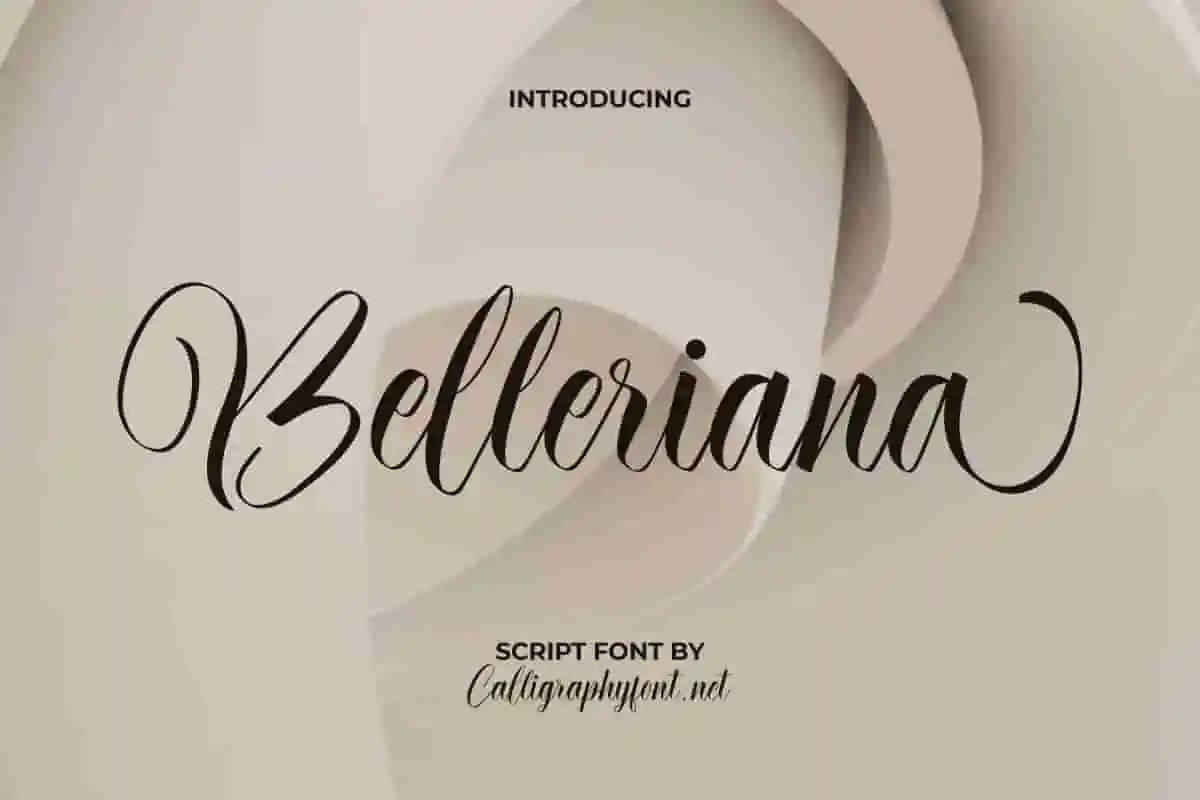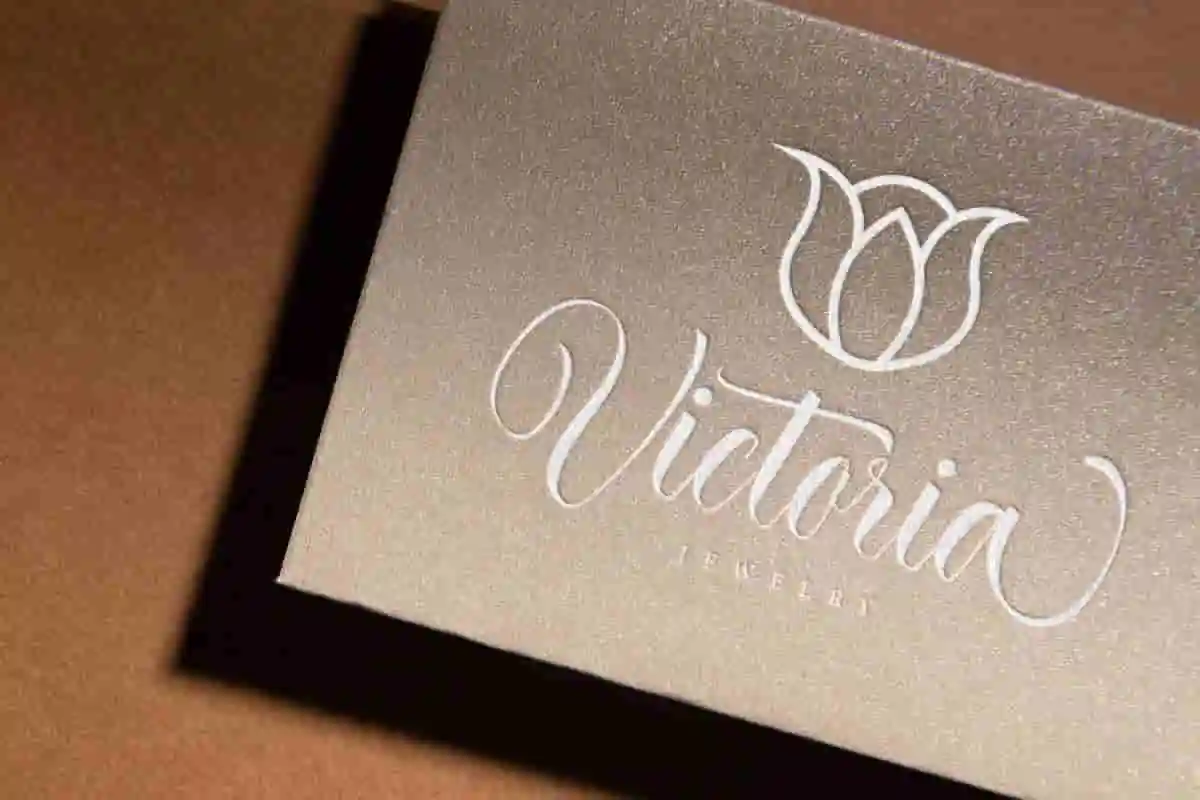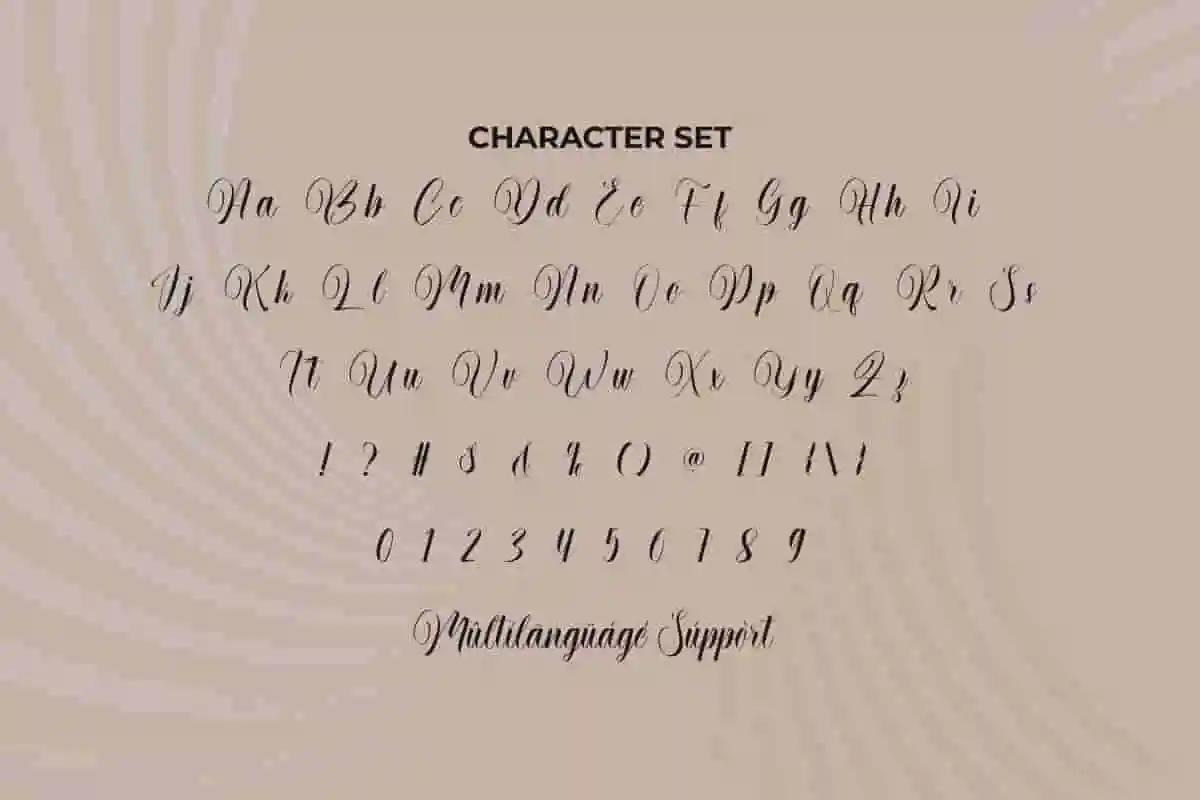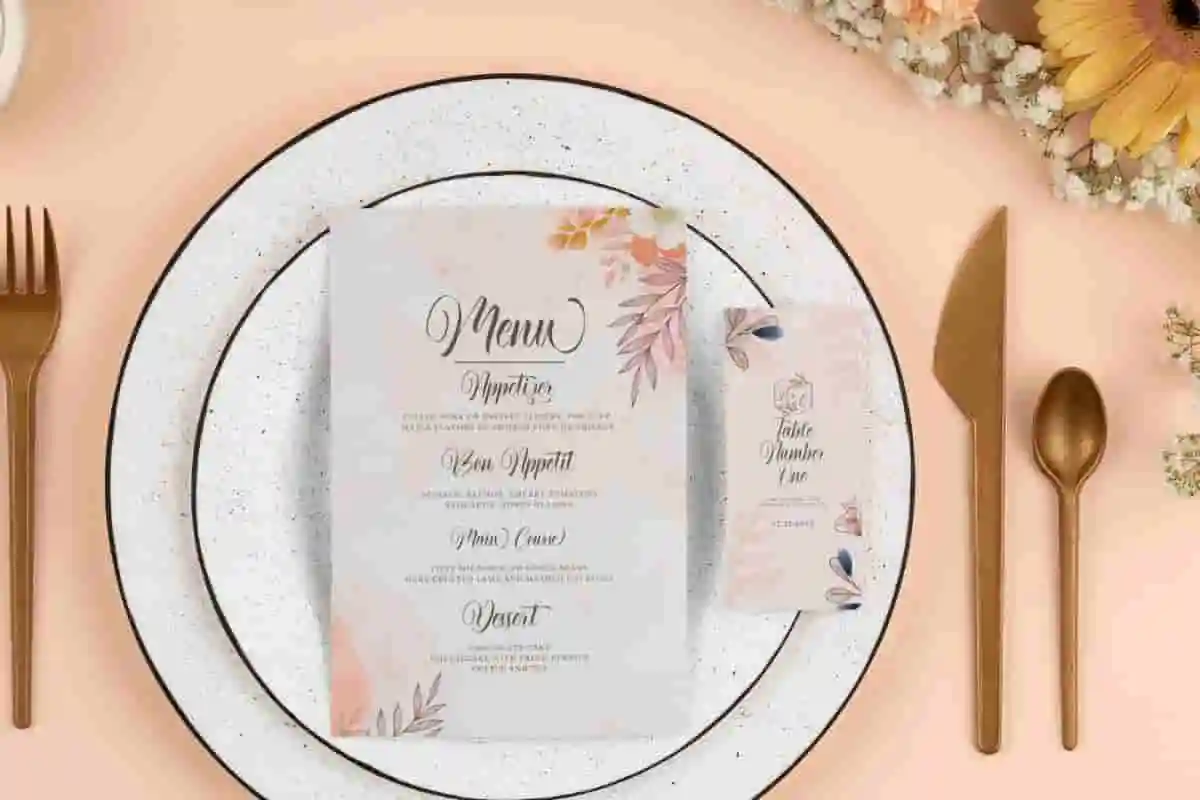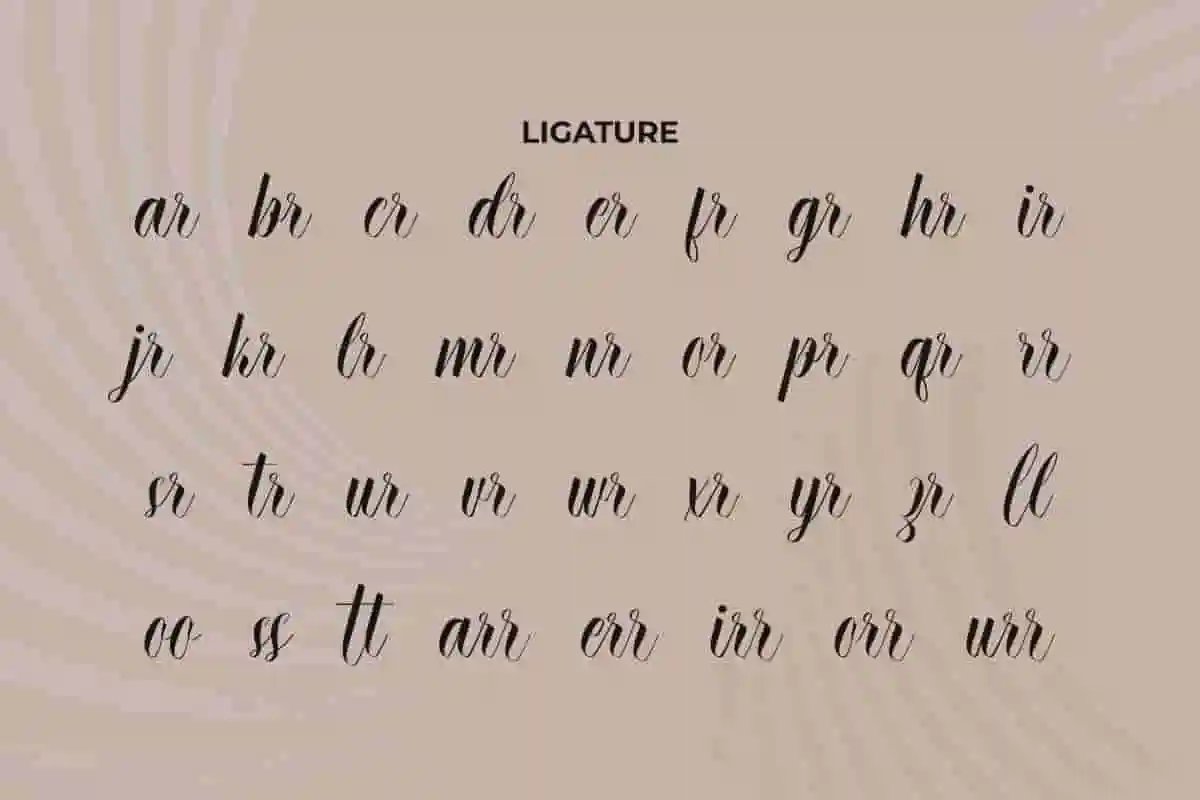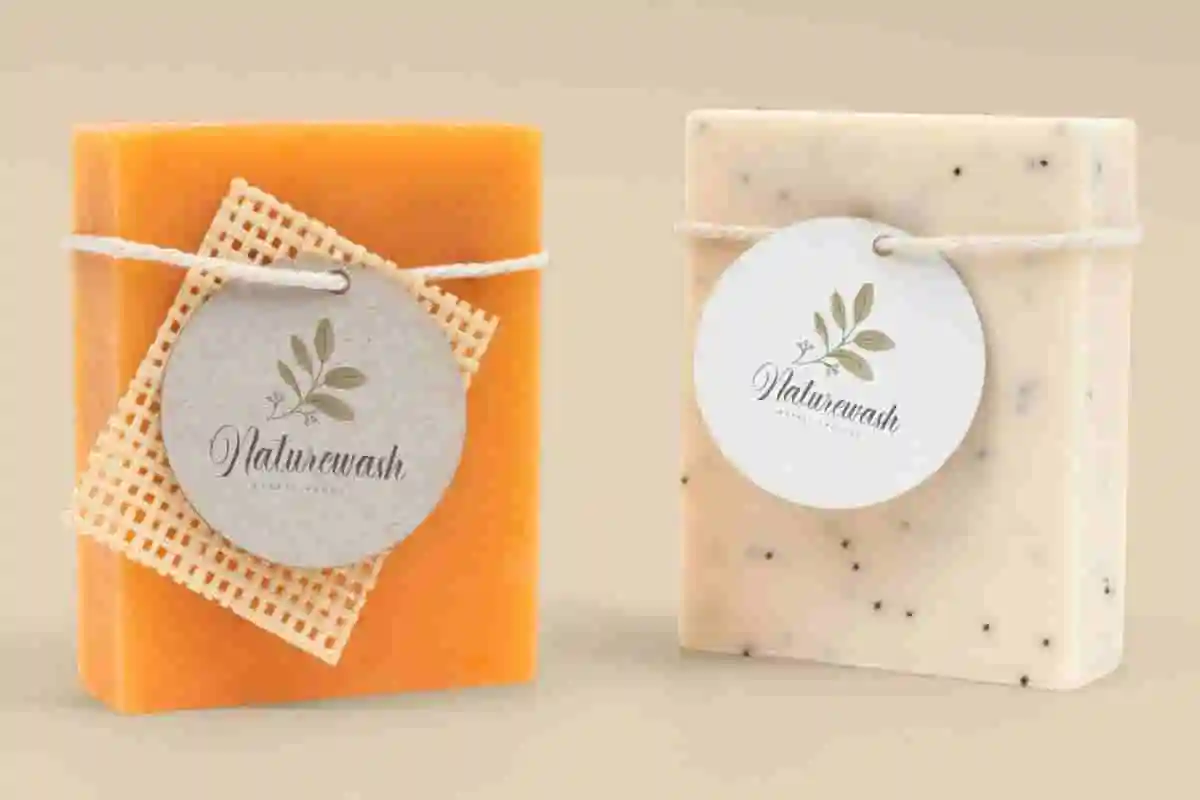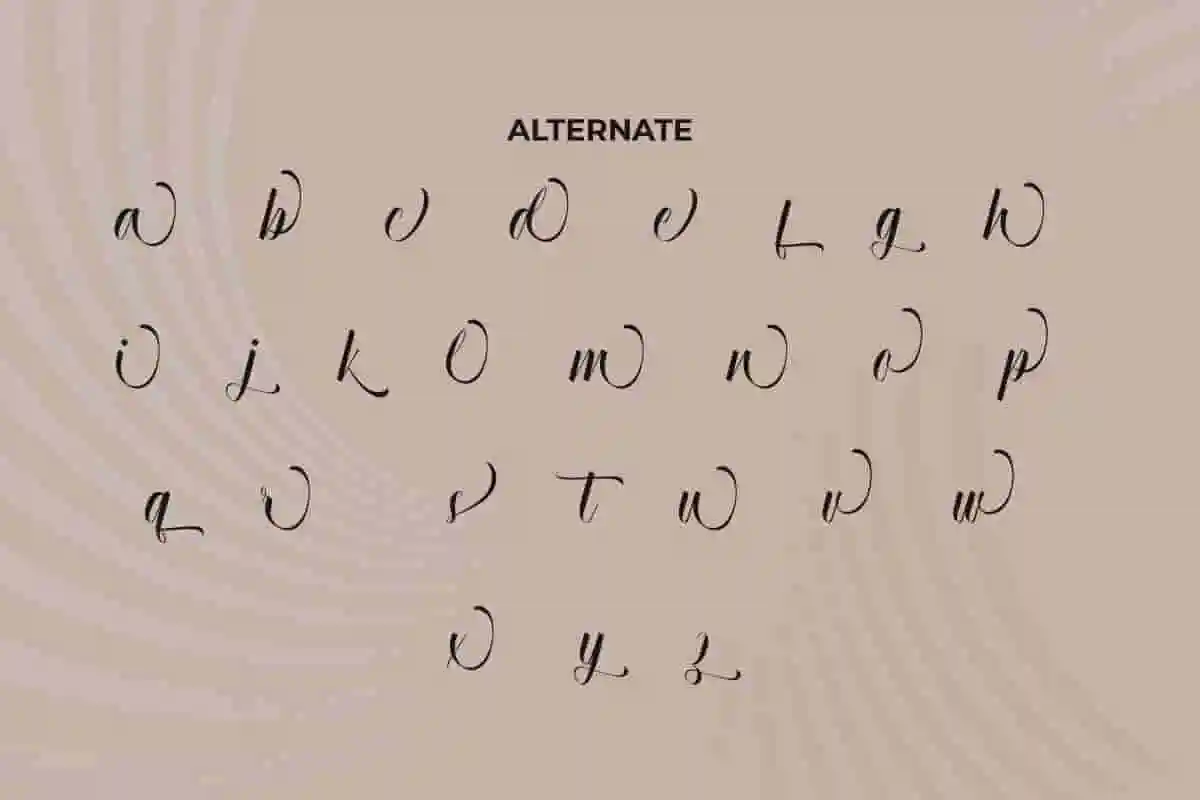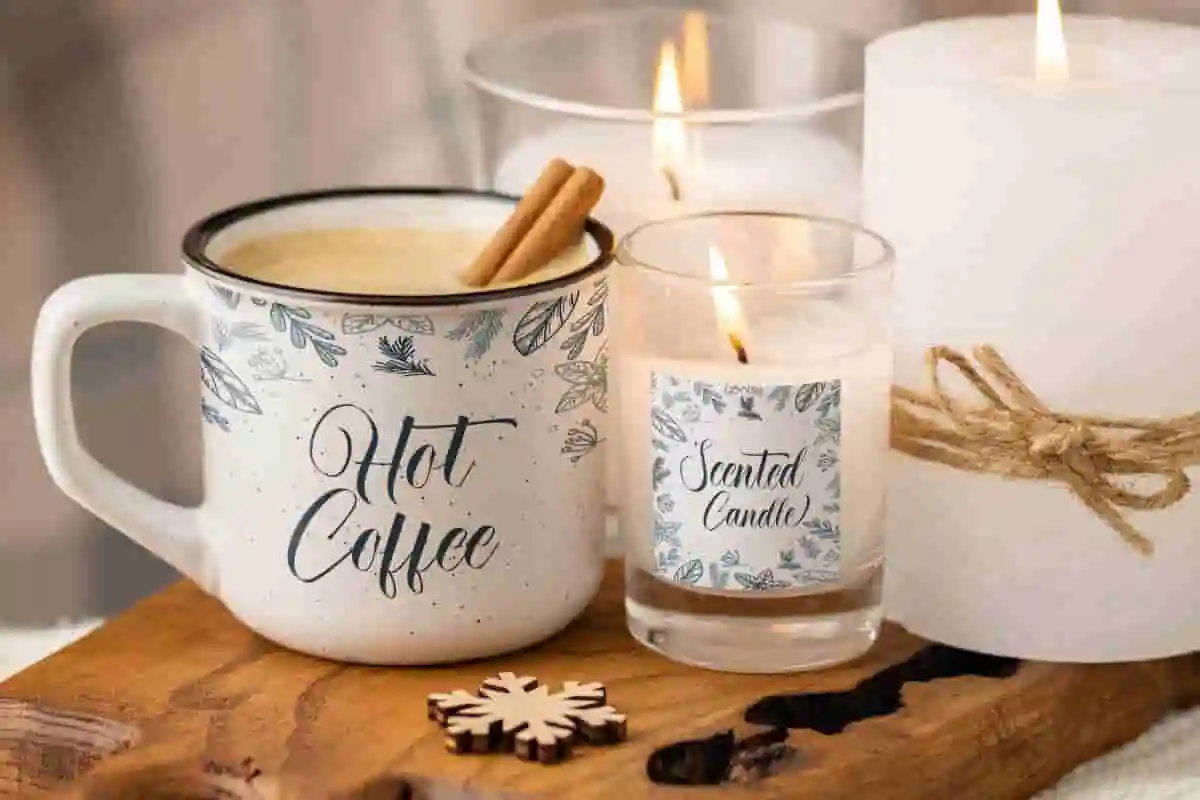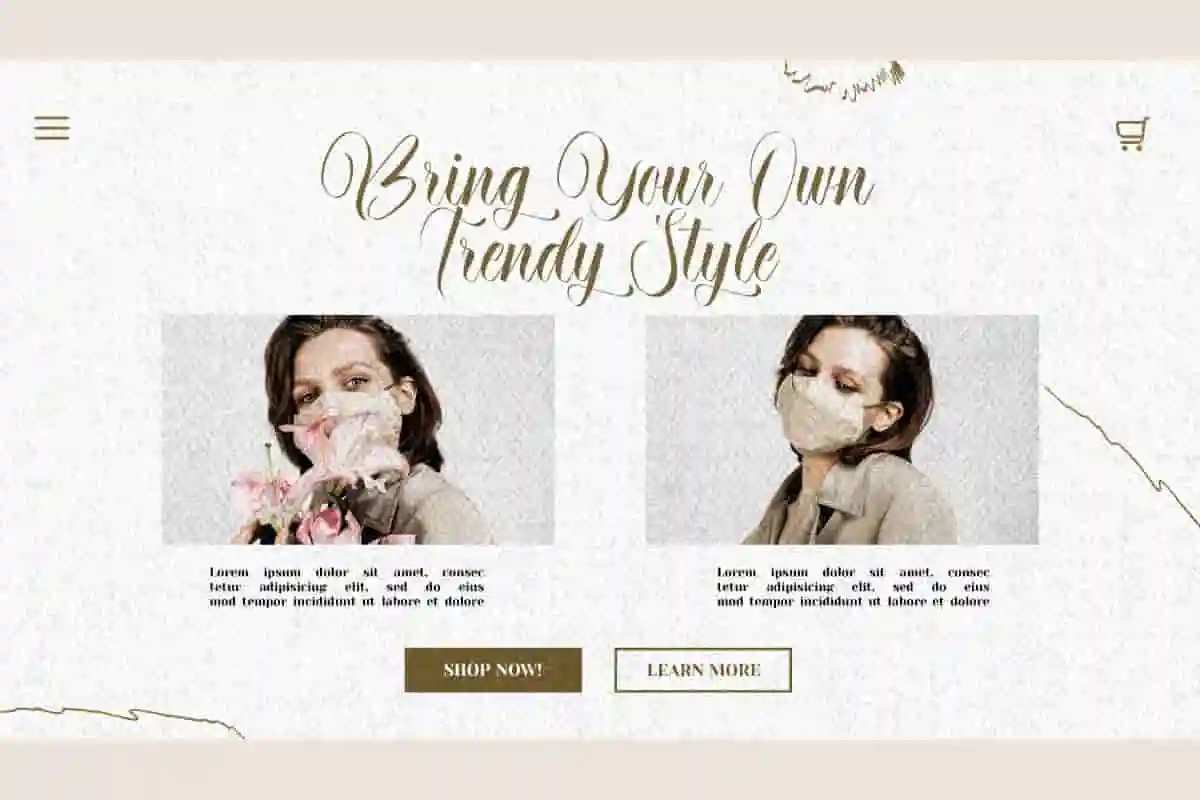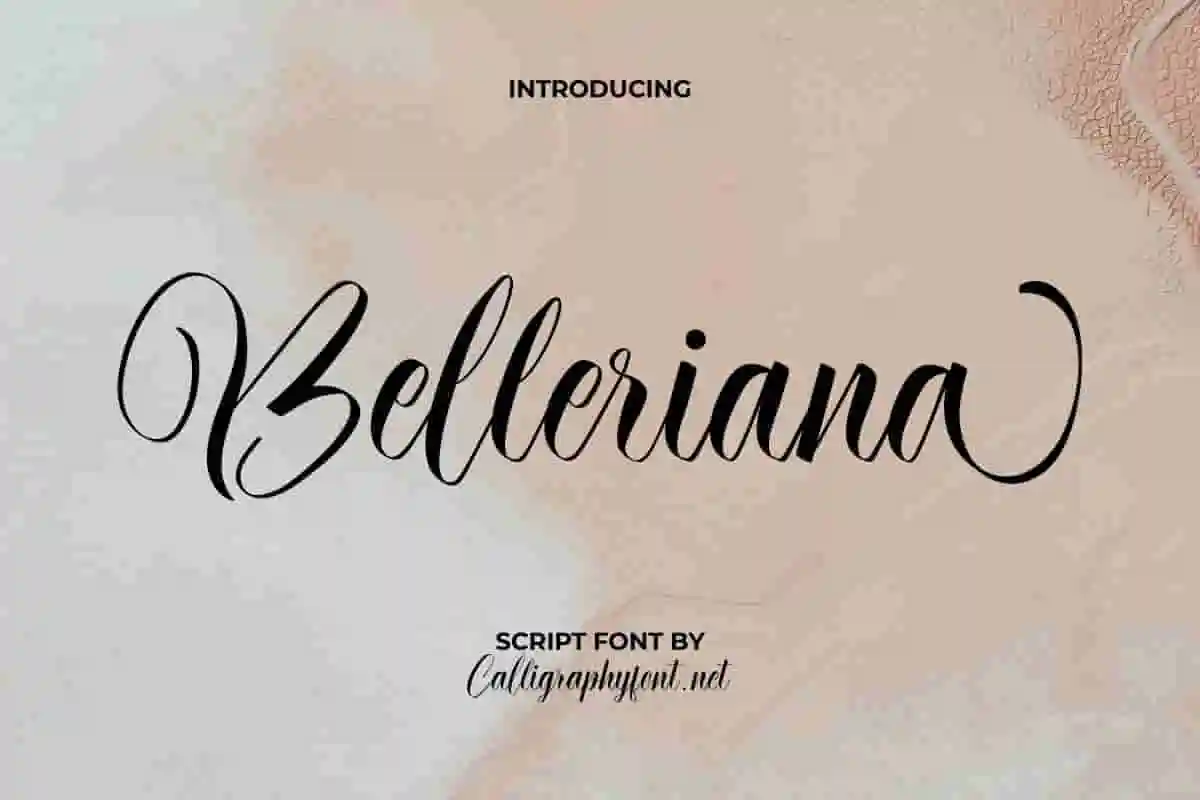
Belleriana Calligraphy Font
Belleriana Font is a is a stunning captivating calligraphy script font that comes with a classy touch. This type will be perfect for handicraft, invitation card design, jewelry, labels, menu, restaurant, spa, website, and more.
Belleriana Font is a stunning captivating calligraphy script font that exudes elegance in every letter, created by Calligraphy Fonts. It’s inspired by beautiful calligraphy writing and can bring any of your designs to life, such as banner, brand logo, greeting cards, invitation, labels, menu, mockup design, stationery, sticker, title, website, and more.
Introducing Belleriana Calligraphy Font, a graceful and timeless script font that brings romance, sophistication, and a handcrafted touch to your most important designs. Perfect for wedding invitations, branding, social media posts, luxury packaging, and event materials, Belleriana offers flowing strokes, elegant curves, and delicate flourishes that make every word look stunning.
If you’re looking for a font that radiates grace, romance, and luxury, meet Belleriana Calligraphy Font — a beautiful script font designed to bring sophistication and charm to every design. With its flowing curves, delicate swashes, and modern calligraphy style, Belleriana is the perfect choice for wedding invitations, branding, social media posts, greeting cards, and luxury packaging.
Introducing Belleriana Calligraphy Font, a luxurious script font that brings a perfect blend of elegance, beauty, and emotion to your creative work. Designed for those who value detail and sophistication, Belleriana features graceful curves, fluid strokes, and refined swashes that mimic real hand lettering. This font is ideal for wedding invitations, brand identities, event signage, greeting cards, social media graphics, and more.
- Elegant & Feminine Style
Belleriana Font will be great for any industry, including : artist, bakery, coffee house, event organizer, fashion, florist, furniture, handicrafts, homeware, hotel, interior design, jewelry, photography, restaurant, salon, spa, wedding, writer, and anything that requires a classy script aesthetic.
Belleriana Font comes with a full set of Uppercase and Lowercase Basic Characters, Number, a large range of Punctuation and Symbol. Also present is a complement to this font, namely the addition of Ligature and Alternate characters that will make your work extraordinary. Ready to use both on Windows machine or Mac with simple installations. It’s tested to work well in the Adobe Apps (Illustrator, Adobe InDesign, Adobe Photoshop) CorelDraw, and others. PUA Encode Characters means you can access all characters easily – Fully accessible without additional design software.